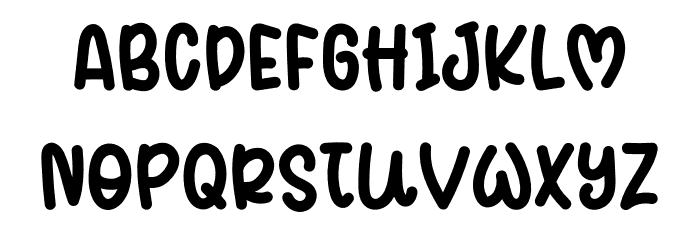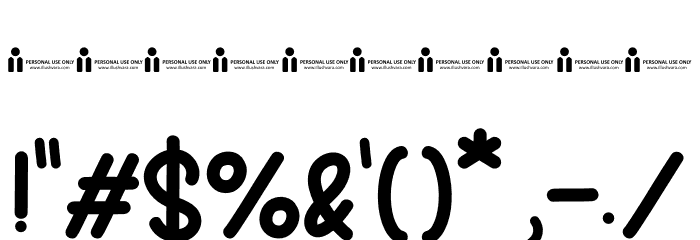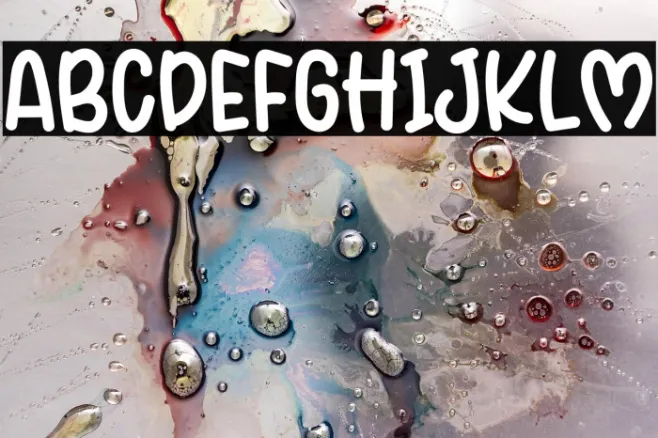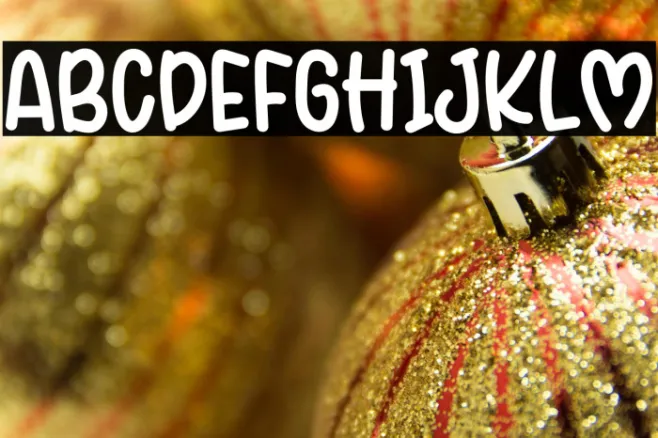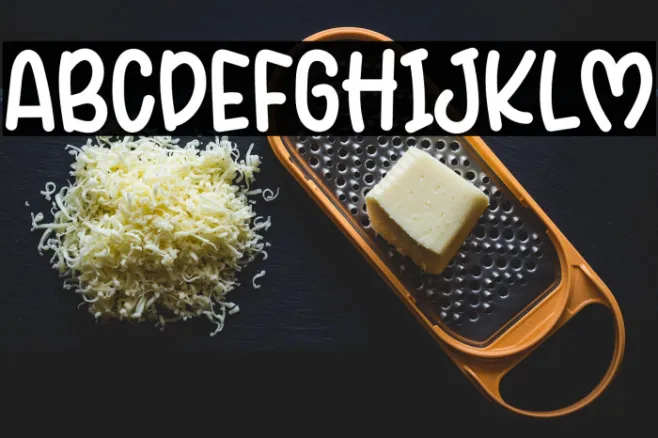
Christ Moon Font
This playful and bold font features rounded, thick strokes that give it a friendly and approachable appearance. The characters are uniformly wide with a slight bounce, adding a whimsical touch. The uppercase and lowercase letters maintain a consistent style, ensuring readability while conveying a sense of fun. The numerals and special characters are designed to match the overall aesthetic, making them suitable for various creative applications. The font's unique style is perfect for projects that require a lively and engaging visual element.
A playful, bold font with rounded strokes and a whimsical style.
- Font: Christ Moon
- Proposed Projects: Ideal for children's books, playful branding, party invitations, and creative posters.
- Overall Style: Playful